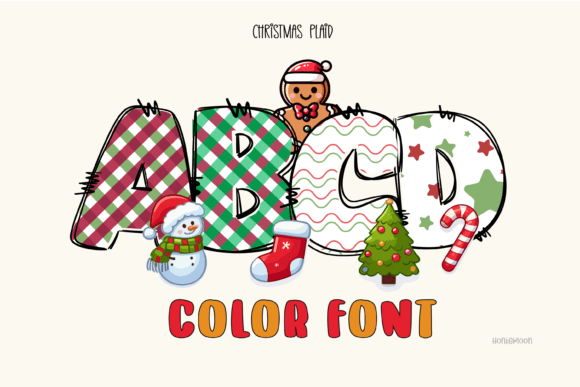
Are you ready to take your festive designs to the next level? Look no further than our Christmas Plaid Font collection! Created by the talented Honiiemoon, these colorful fonts are specifically designed for plasma cutting, making them perfect for all your holiday projects.
With our Christmas Plaid Color Fonts, you can add a touch of magic and cheer to your creations. Each letter is crafted with intricate details and vibrant colors, ensuring that your designs will stand out from the crowd. Whether you're creating personalized gifts, holiday cards, or decorations, these fonts will bring your vision to life.
Our black version of the Christmas Plaid Font is compatible with popular cutting machines like Cricut Design Space, allowing you to easily create stunning vinyl decals, stencils, and more. Let your creativity run wild as you transform ordinary materials into festive masterpieces.
For those using design programs such as PhotoShop, Illustrator, Silhouette, or Inkscape, the color version of our font is a must-have. Take advantage of the endless possibilities that these programs offer and unleash your imagination. From digital artwork to print designs, the Christmas Plaid Color Fonts will add a captivating and unique touch to your projects.
In conclusion, our Christmas Plaid Font collection is the key to unlocking your creativity this holiday season. Elevate your designs with these eye-catching, keyword-rich fonts crafted for plasma cutting. Let the festive spirit come alive with every stroke of your pen or click of your mouse. Download the Christmas Plaid Fonts today and bring joy to your projects!